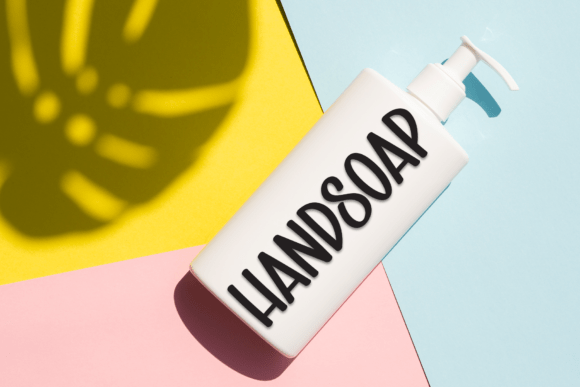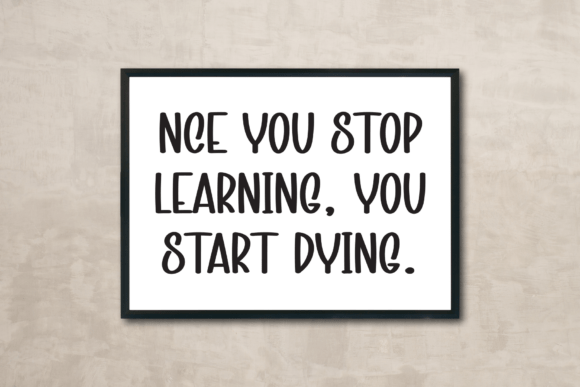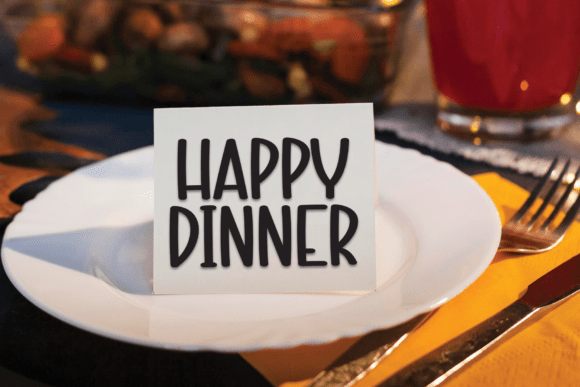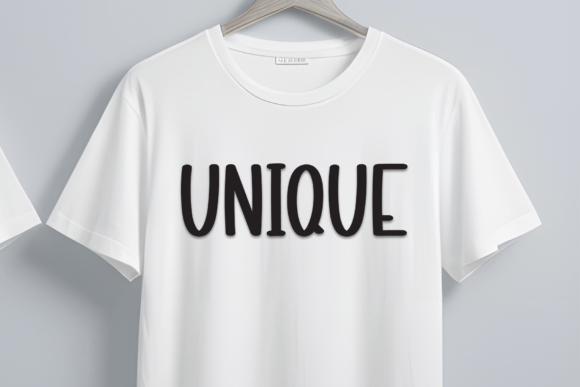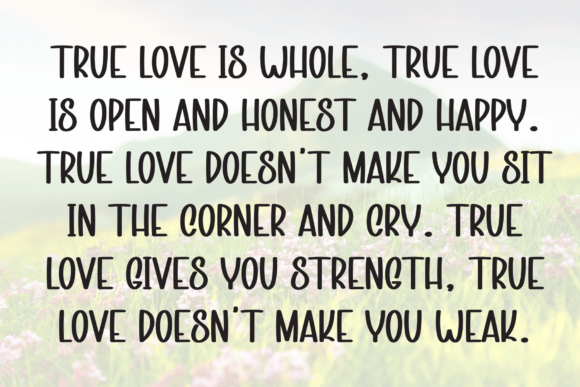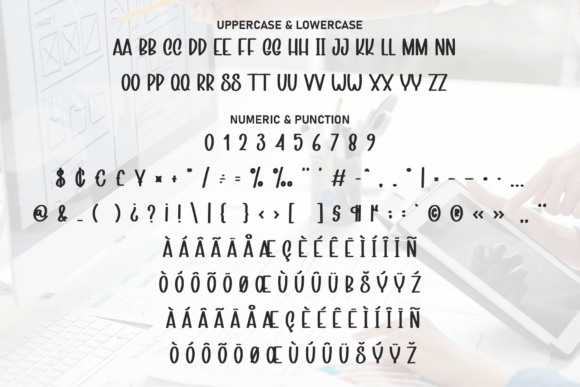
Introducing Designer Font: The Perfect Blend of Playfulness and Professionalism
In the world of digital design, typography plays a crucial role in conveying the tone and personality of a brand or project. A well-chosen font can elevate your design, making it more engaging, readable, and memorable. If you’re looking for a font that embodies a perfect blend of playfulness and professionalism, look no further than the Designer Font. This modern, handwritten font is specifically designed to add a touch of whimsy and sophistication to your digital designs, branding, posters, and creative projects.
What Makes Designer Font Stand Out?
Designer Font is a bold, handwritten typeface with a modern edge that sets it apart from more traditional fonts. Its clean curves and quirky character shapes give it a unique personality that is both casual and professional. The font’s playful nature makes it perfect for designs that require a bit of personality, while its clean lines and modern aesthetic ensure it remains legible and sophisticated.
Key Features of Designer Font
- Playful and Bold: Designer Font is not your average, run-of-the-mill typeface. It’s bold, it’s playful, and it’s designed to make a statement.
- Modern Edge: With its clean curves and contemporary character shapes, Designer Font brings a modern touch to any design.
- Clean Curves: The font’s smooth, clean curves make it highly legible, even at smaller sizes.
- Quirky Character Shapes: The unique, quirky shapes of the characters add a touch of whimsy and personality to the font.
- Versatile: Whether you’re working on a digital project, a print design, or a branding campaign, Designer Font adapts seamlessly to any medium.
Use Cases for Designer Font
Designer Font’s versatility makes it suitable for a wide range of design applications. Here are some of the best use cases for this fantastic font:
- Digital Design: From website headers to social media graphics, Designer Font adds a modern, fresh touch to digital designs.
- Branding: Create a memorable brand identity with Designer Font. Its unique personality helps brands stand out.
- Posters: Add a bold, eye-catching headline to your posters with Designer Font. Its playful nature ensures your message grabs attention.
- Creative Projects: Whether you’re working on a personal project or a client’s, Designer Font brings a level of creativity and professionalism that’s hard to match.
Tips for Using Designer Font Effectively
To get the most out of Designer Font, consider the following tips:
- Pair it with Neutrals: Balance the boldness of Designer Font with neutral fonts for body text to create visual harmony.
- Experiment with Sizes: Play around with different font sizes to emphasize certain words or phrases and add dynamism to your design.
- Use it Sparingly: While Designer Font is versatile, using it sparingly can make it more impactful. Use it for headlines or key messages.
Designer Font is a bold, playful, and modern handwritten font that brings a unique blend of whimsy and professionalism to any design project. Its clean curves, quirky character shapes, and versatile nature make it an excellent choice for digital designs, branding, posters, and creative projects. By incorporating Designer Font into your typography arsenal, you’ll be able to create designs that are not only visually stunning but also convey a sense of modernity and approachability. So, why settle for ordinary when you can make your designs extraordinary with Designer Font?